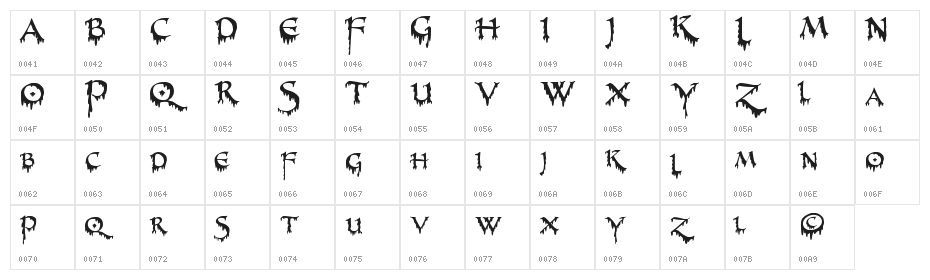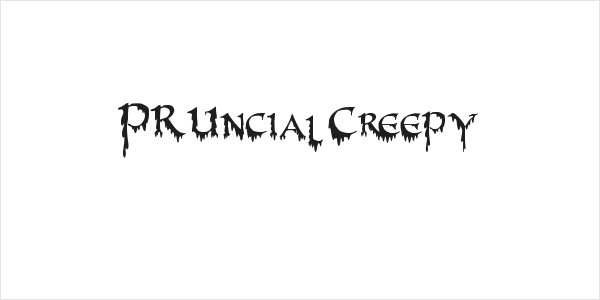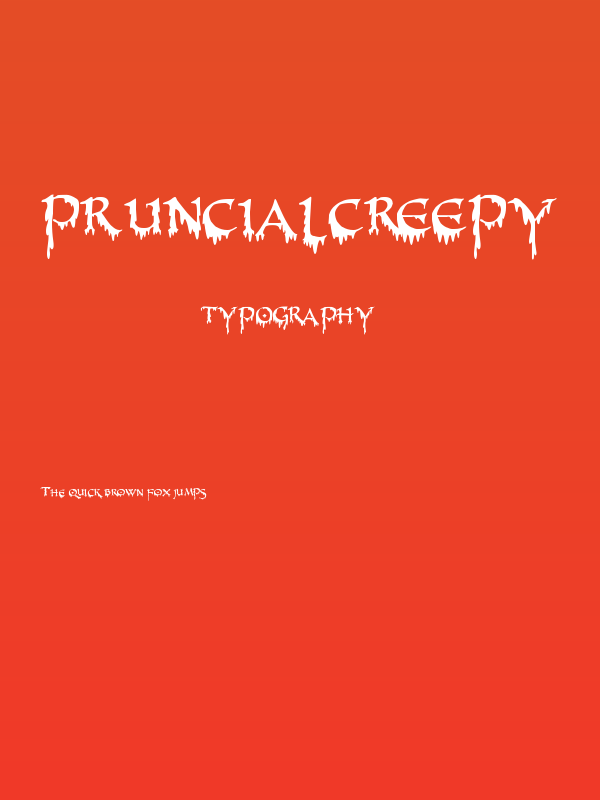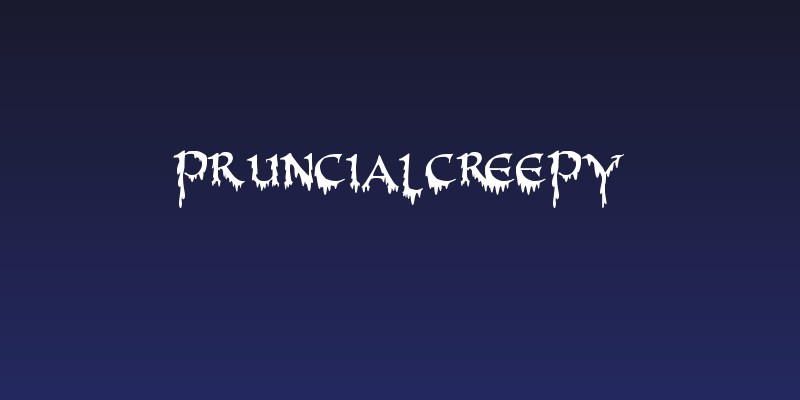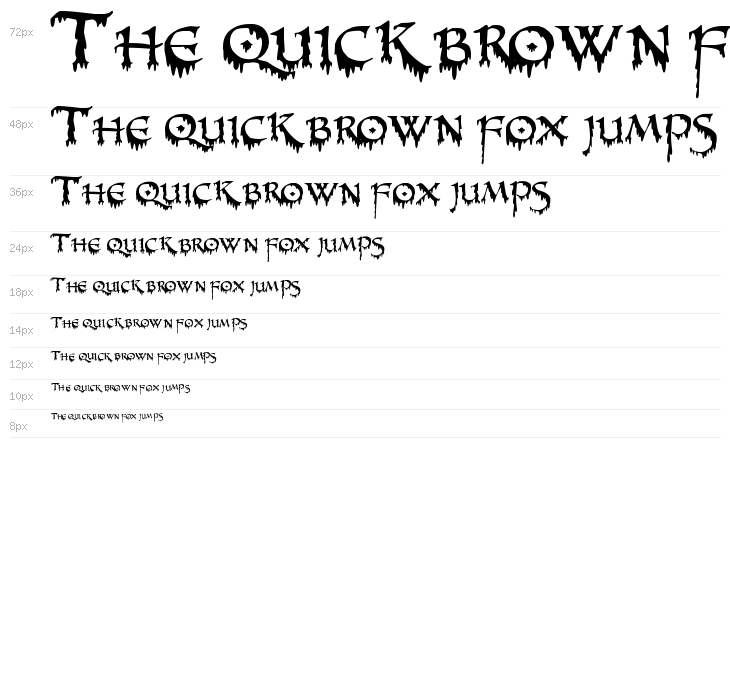
PR-Uncial Creepy Font
PR-Uncial Creepy Description
This font exudes a chilling and eerie atmosphere, perfect for Halloween or horror-themed projects. The letters appear to be dripping, reminiscent of melting wax or blood, adding to its spooky aesthetic. The uppercase and lowercase characters maintain a consistent style, with sharp, jagged edges and irregular forms that enhance the unsettling vibe. The numerals and special characters follow the same design principles, ensuring a cohesive look across all text elements. This font is ideal for creating eye-catching titles, posters, or invitations that require a touch of the macabre.
| Proposed Projects | Ideal for Halloween posters, horror movie titles, spooky invitations, and themed event signage. |